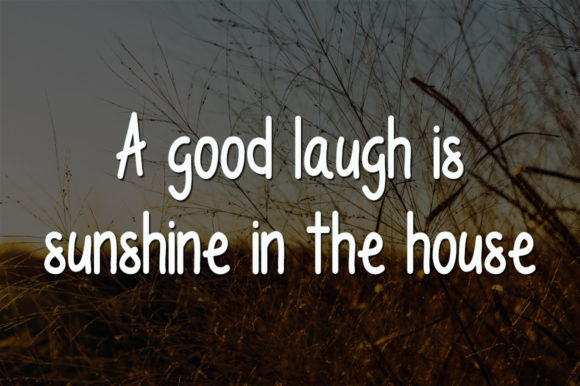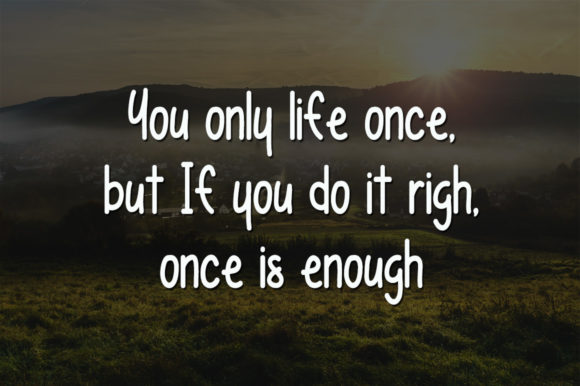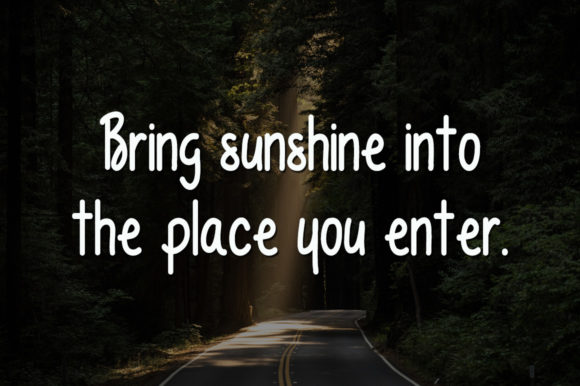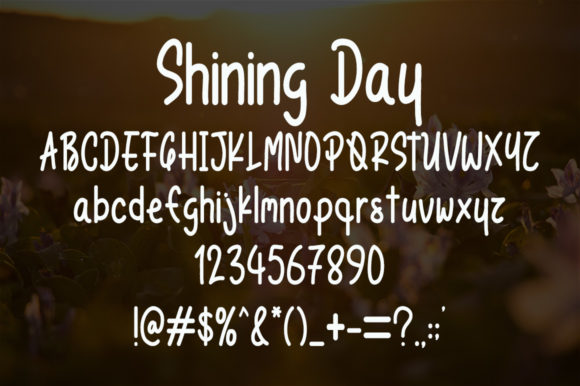
Shining Day Font
About Shining Day Font
Shining Day is a sweet and friendly handwritten font. Its natural and unique style makes it incredibly fitting to a large pool of designs.